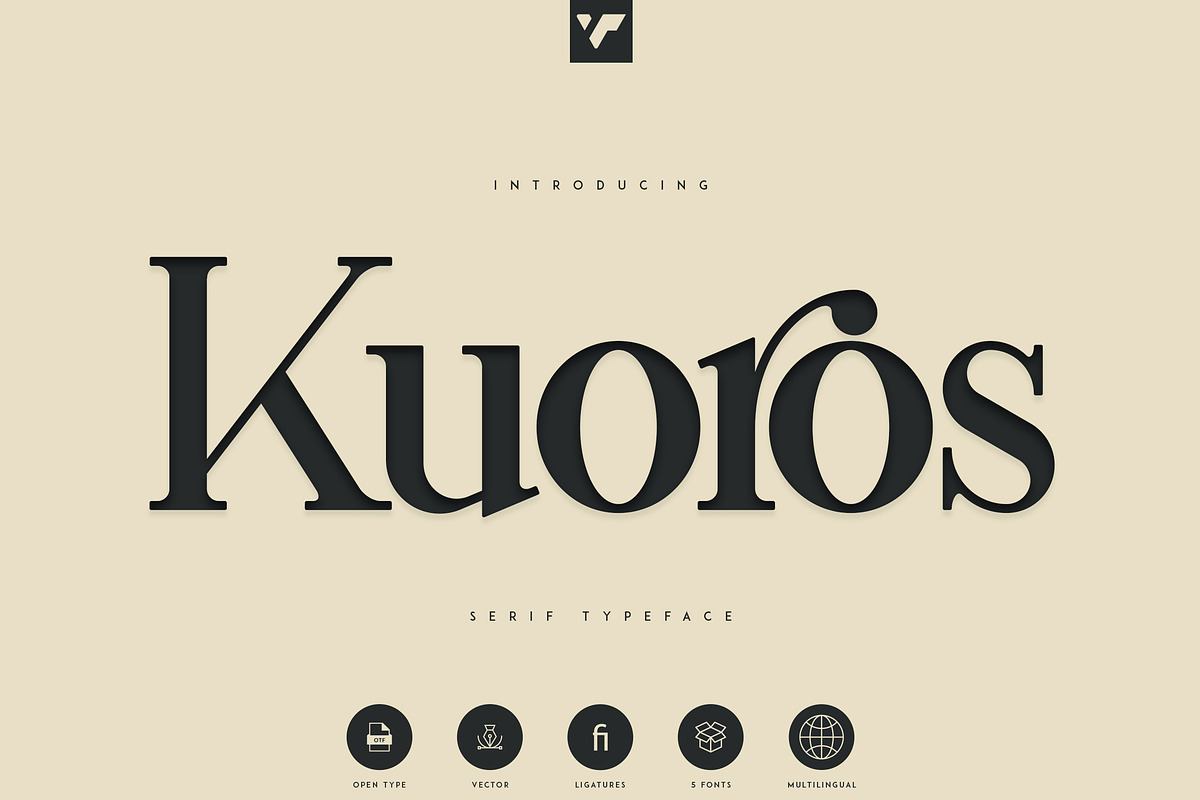
Modern, versatile, and highly functional, Kuoros Serif Typeface - 5 Weights Free Download is a professional serif font family with five distinct weights, perfect for a wide range of design projects. Whether you’re creating logos, editorial layouts, branding, websites, or packaging, this font offers the flexibility to suit both bold and minimal designs.
With its refined serifs and balanced letterforms, Kuoros delivers sophistication and readability. Its multiple weights (from Light to Bold) allow you to create dynamic hierarchies in your design, making it a go-to option for both print and digital content.